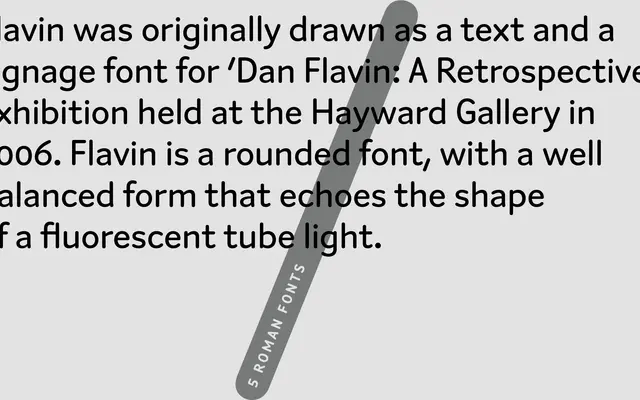
Flavin
A2-Type · 2006
A rounded sans-serif drawn for the Dan Flavin retrospective at the Hayward Gallery in 2006, its forms referencing the shape of a fluorescent tube.
Originally commissioned as a signage and text font for 'Dan Flavin: A Retrospective' at the Hayward Gallery, the design carries a quiet conceptual logic in its rounded terminals, which echo the cylindrical profile of Flavin's fluorescent light works. Five weights run from Light to Bold without italics, making it a compact family suited to cultural and editorial contexts. The well-balanced proportions hold up at both display and text sizes.
A rounded sans-serif with terminals that echo the cylindrical form of a fluorescent tube, originally drawn for exhibition signage and text use.